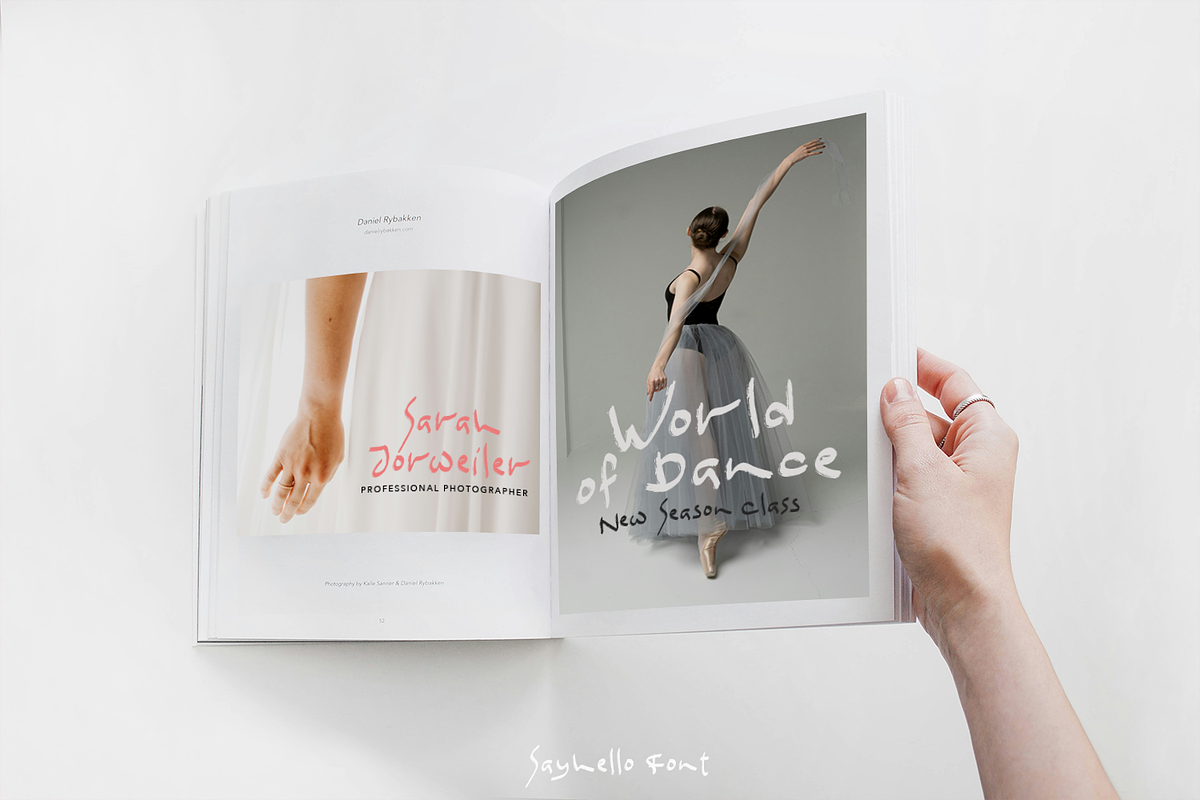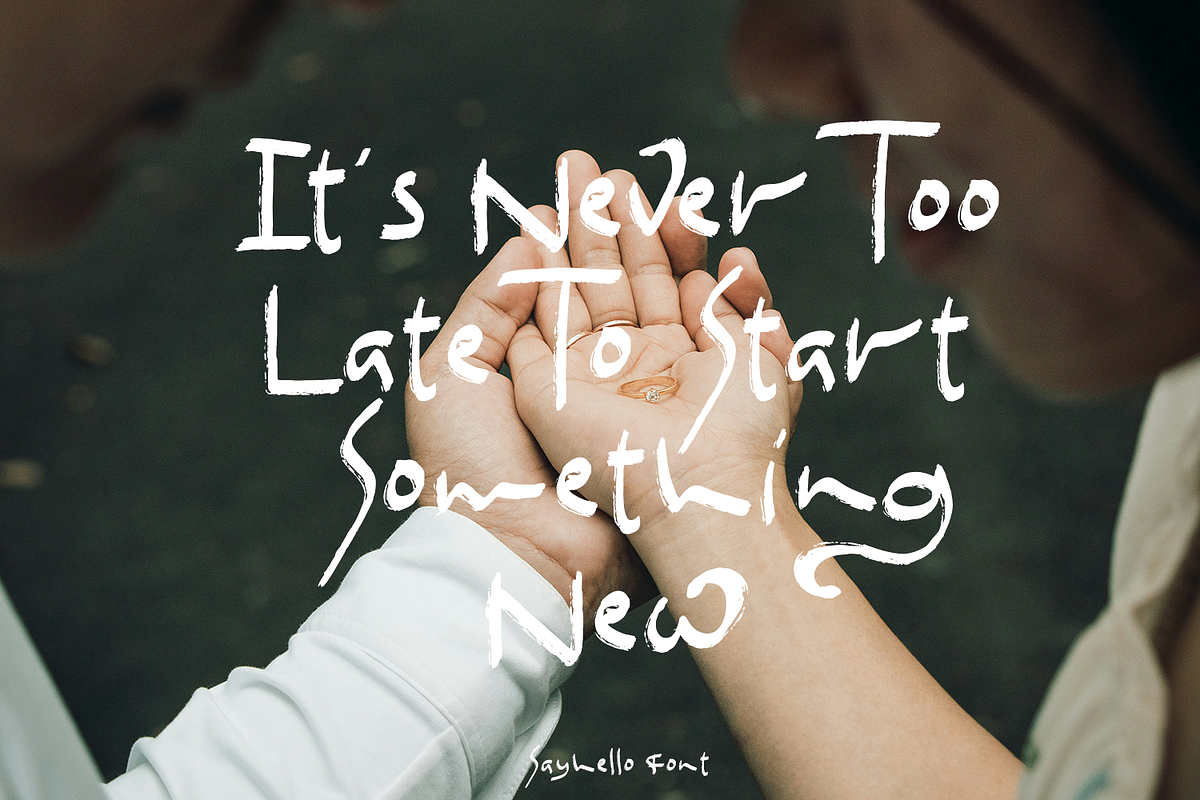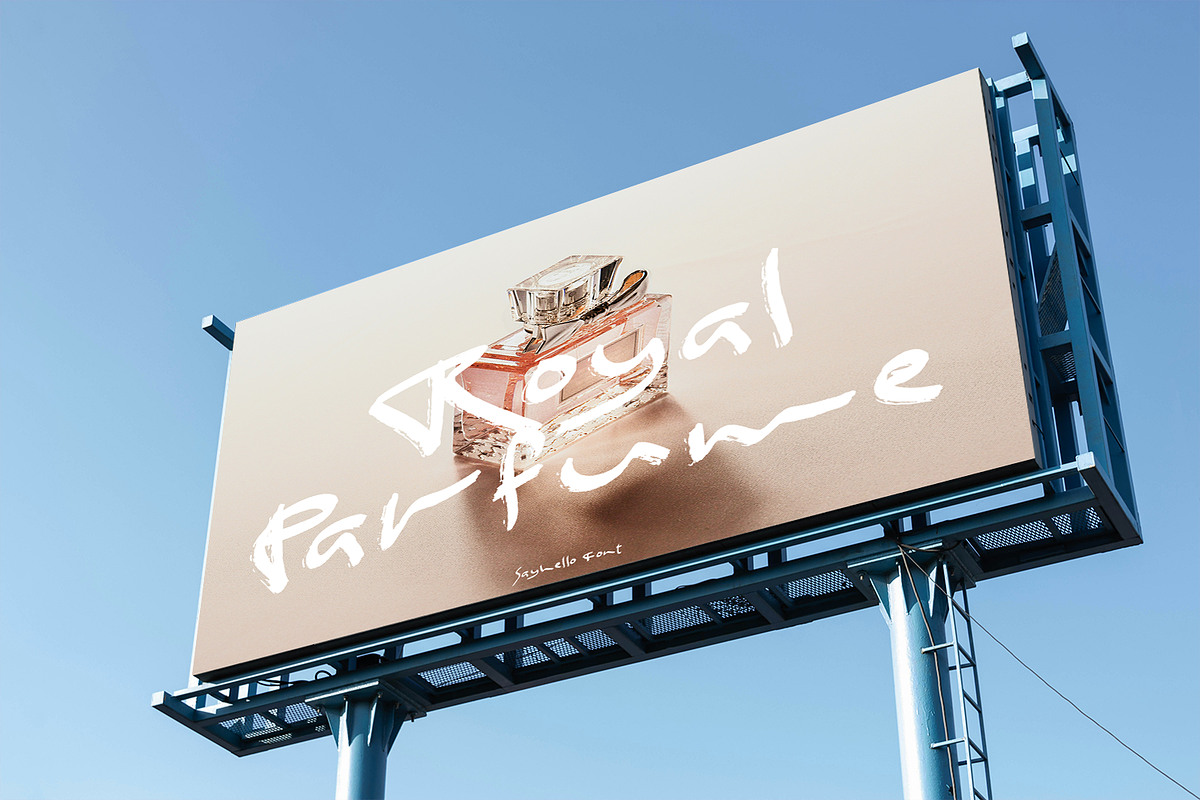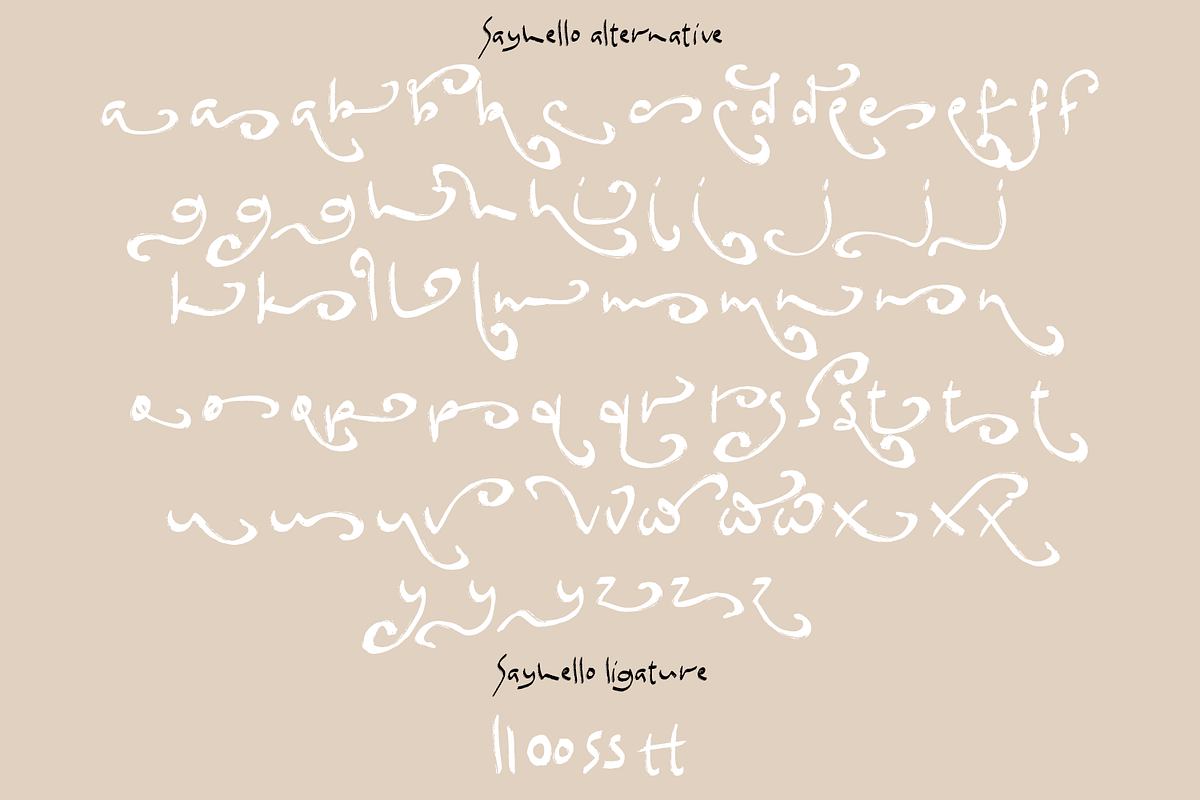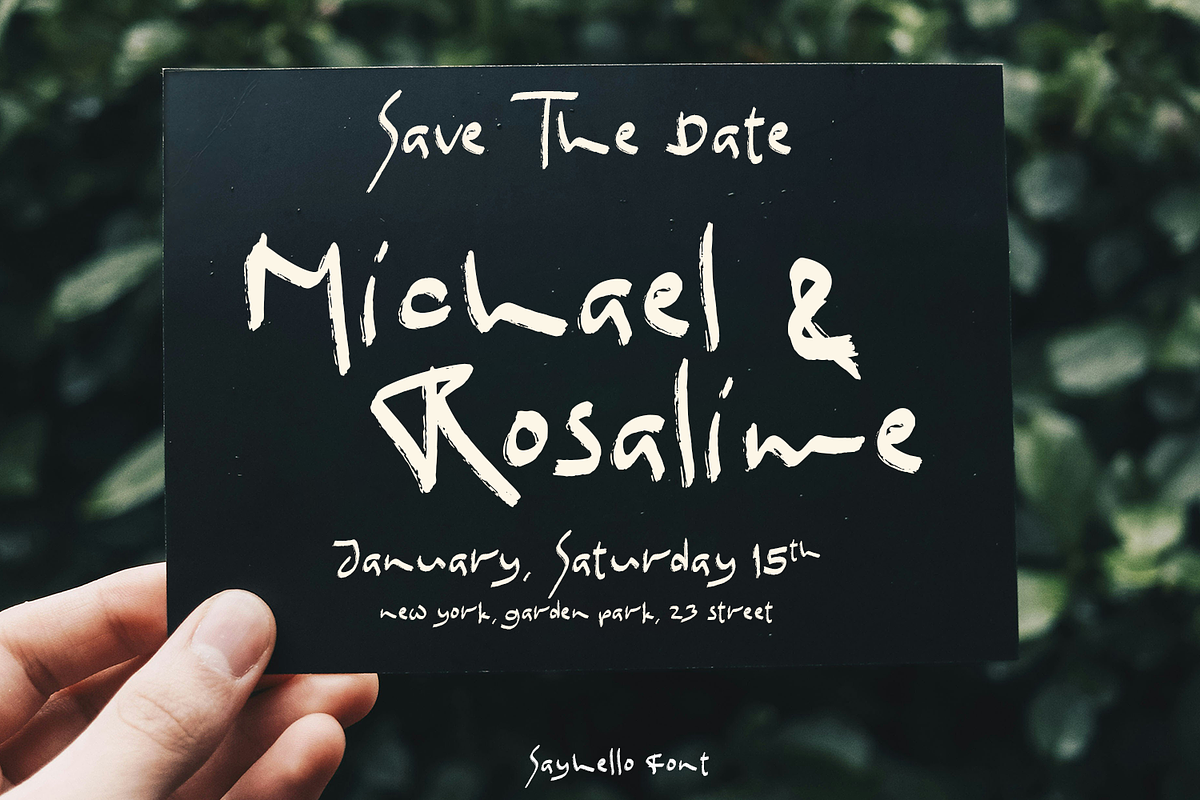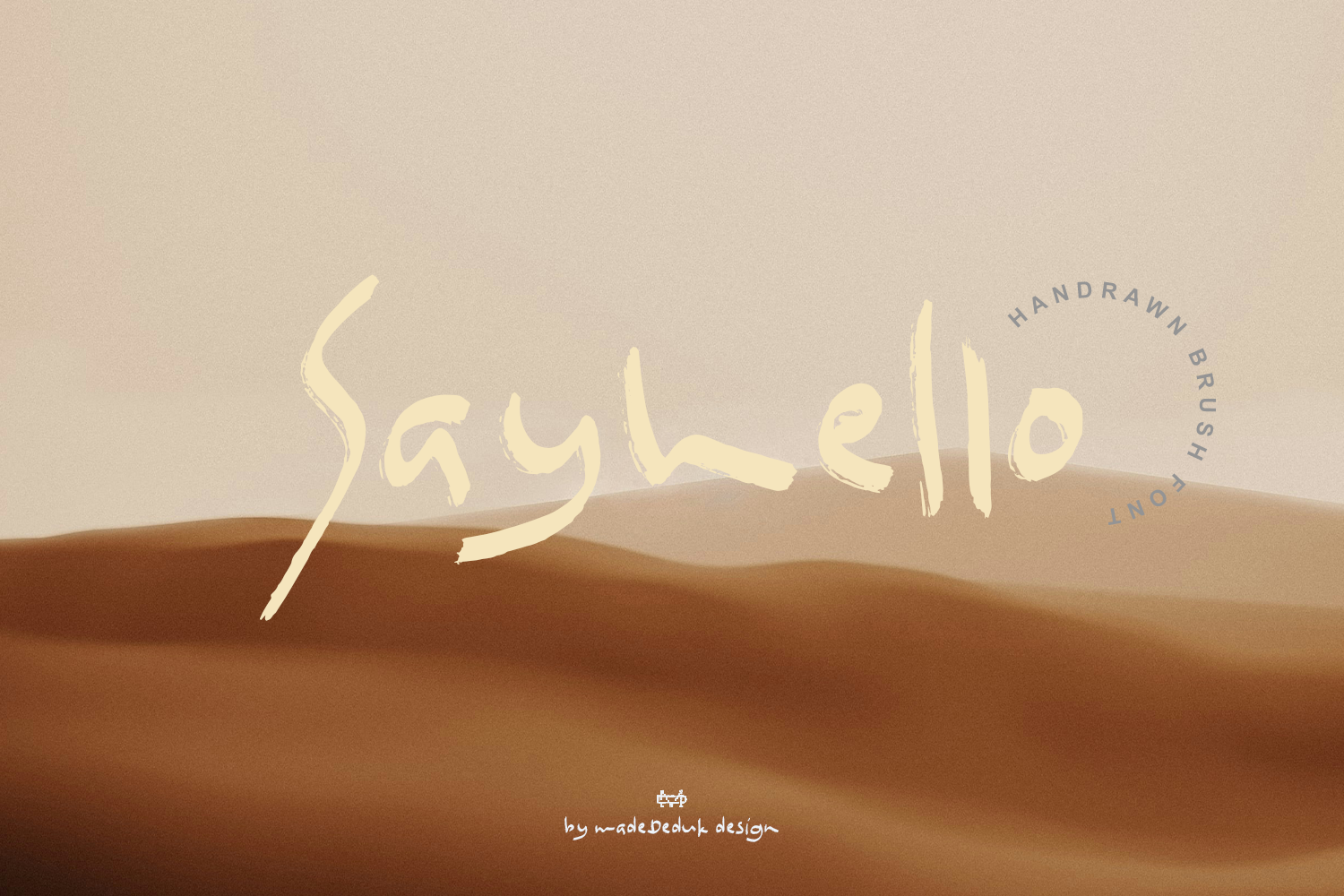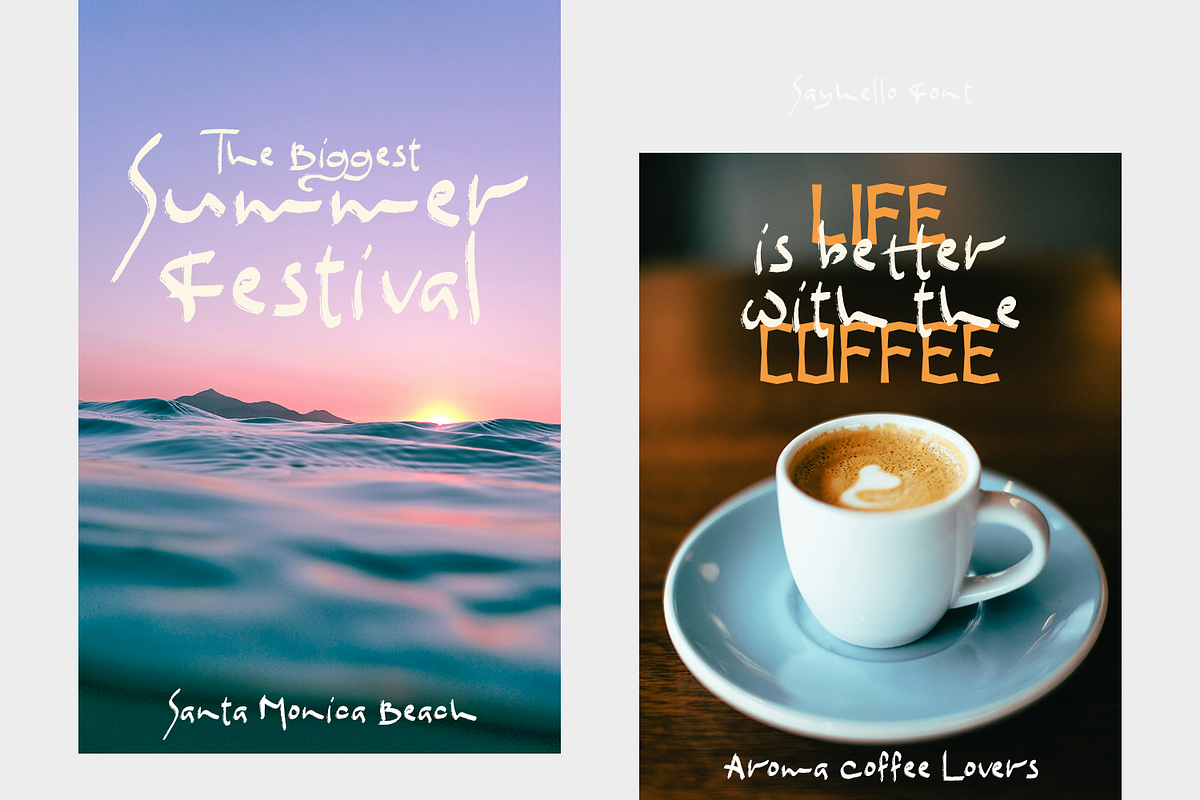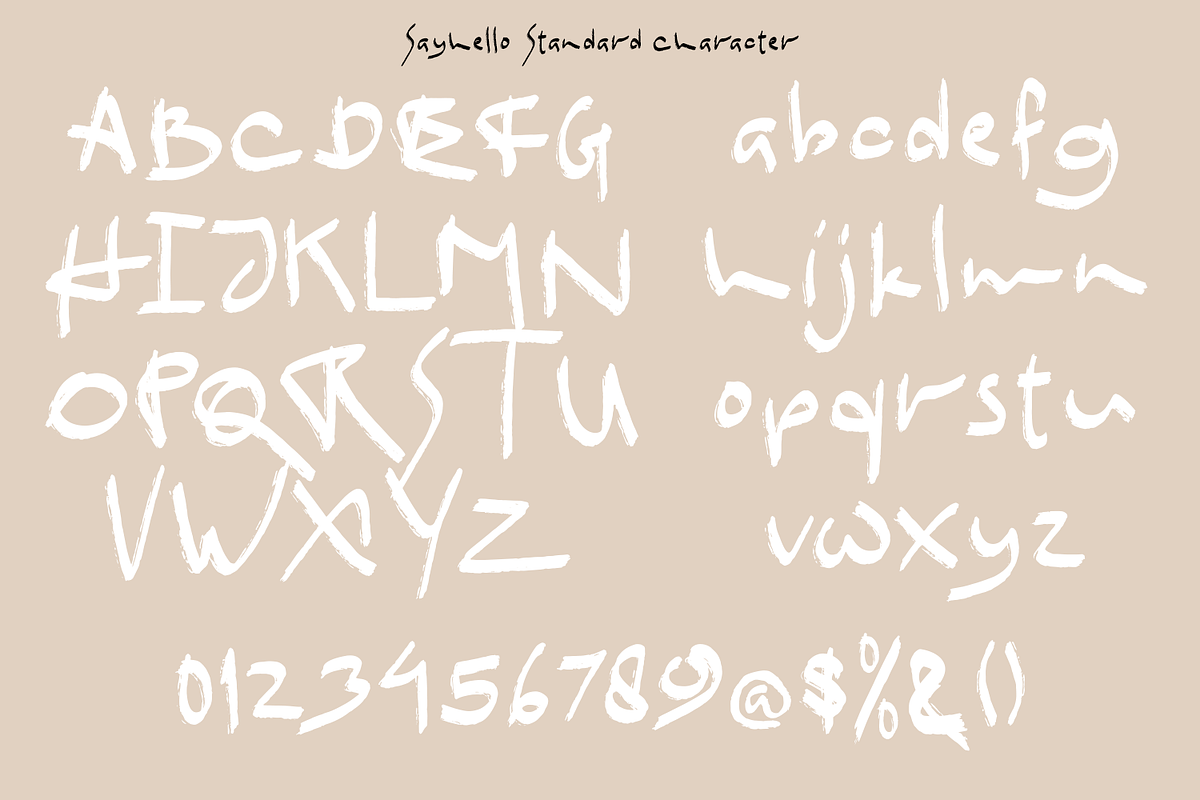
Sayhello Brush Font
Really excited to introduce Sayhello is a realistic brush font! Give a incredible impression for all your project design. Sayhello font come with much alternative and this font perfect for poster design, book covers, merchandise, fashion, newsletters, branding, advertising, magazines, greeting cards, album covers, quote and more.